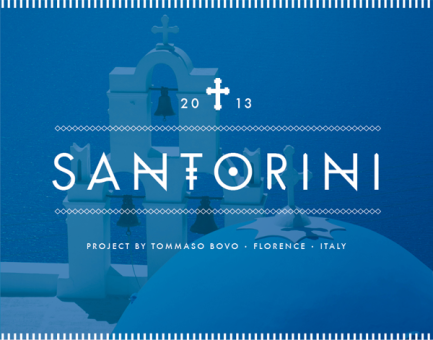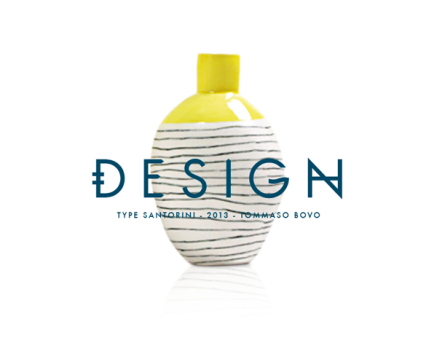
Santorini
Sans serif typeface inspired by Santorini Island. Designed by Tommaso Bovo (Florence, Italy).
Designer: Tommaso Bovo
Publisher: Tommaso Bovo